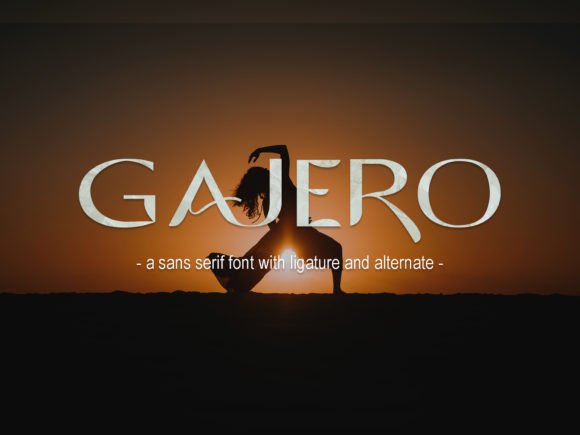
Welcome to the world of exquisite typography, where Gajero Font reigns supreme. This masterpiece of a sans serif font is a creation of artnivora.std, a renowned name in the font realm. With its elegant and stylish demeanor, Gajero is the perfect choice for those seeking a touch of sophistication and class in their designs.
Gajero's unique and lovely feel adds a charm that elevates any project. Its versatility knows no bounds, seamlessly adapting to a myriad of design needs. Whether you're crafting magazine or book covers, advertisements, logotypes, branding, fashion-forward designs, or captivating quotes, Gajero will transform your words into visual art.
Envision your blog or website headers adorned with Gajero's timeless beauty, drawing visitors in with its allure. Create invitations and posters that radiate elegance and refinement, leaving a lasting impression on your guests. The possibilities are endless, as Gajero's versatility empowers you to explore your creativity like never before.